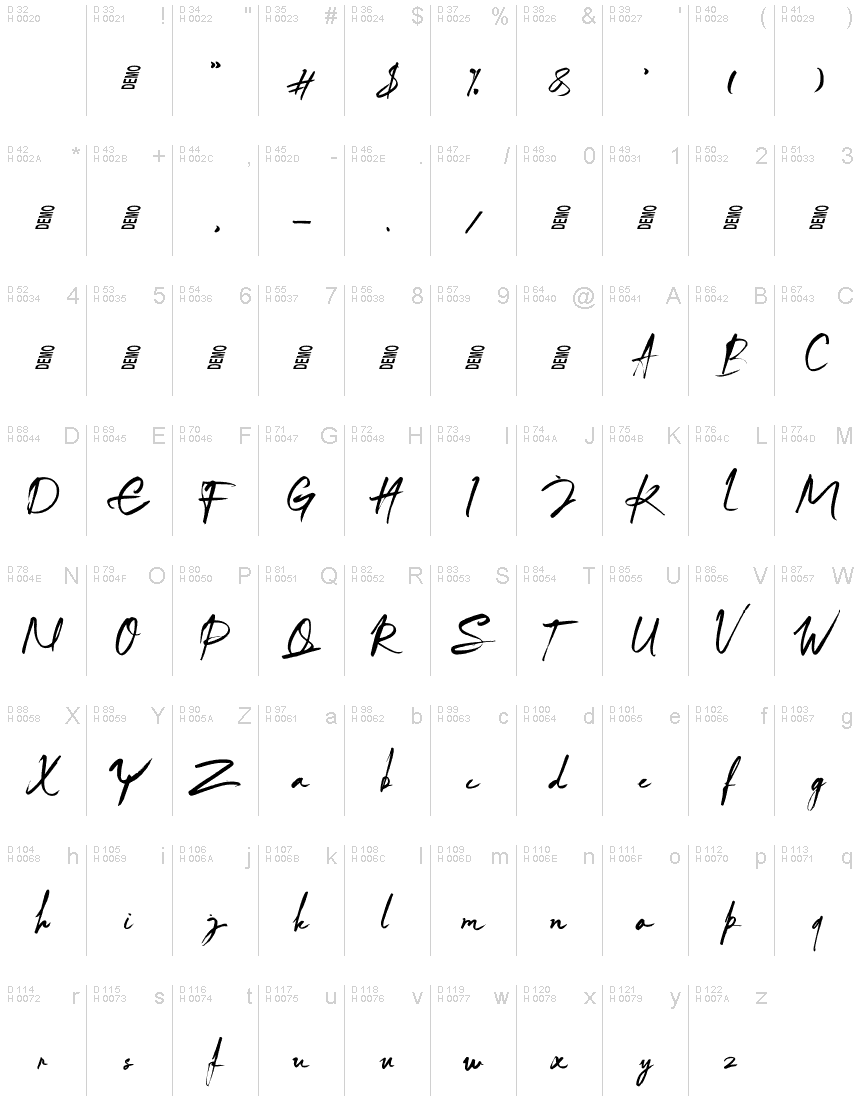
Arthur Keith
Arthur Keith, the semi-light and semi-condensed handwritten signature font is a masterpiece by DLetters.Std. It adds a personal touch to any project with its unique and elegant style. This font is perfect for branding projects, logos, packaging designs, invitations, social media graphics, and more. The semi-light weight of the Arthur Keith font creates a soft and delicate look that can bring a gentle touch to any design. Its semi-condensed width makes it ideal for fitting longer text into smaller spaces without compromising on legibility or style. Elevate your designs with Arthur Keith's impeccable signature style!